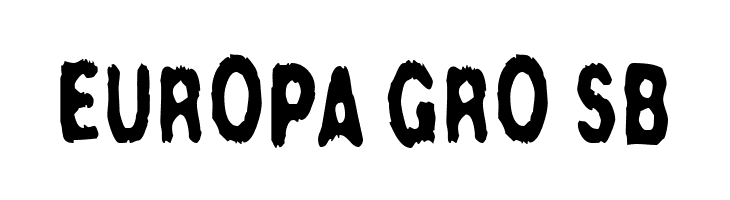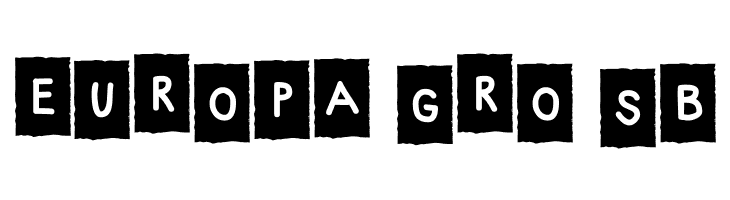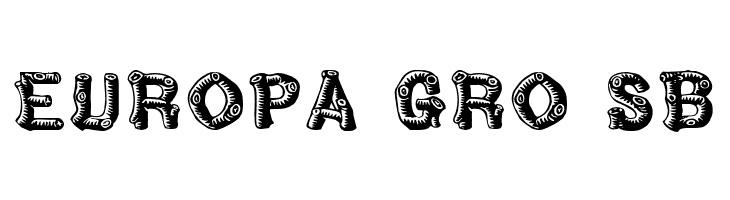
ModernLove Font
A bold, geometric font with a modern, digital aesthetic.
Woody Font
A playful, decorative font with a hand-carved, textured appearance.
French Font
Aloha Font
A bold, cursive font with interconnected characters and a playful style.
Gia Font
A bold, rounded font with a playful and modern style.
Mod Guitars Font
A bold, geometric font with a modern, edgy aesthetic.
Automobile Font
Font by www.girlswhowearglasses.com
A fluid and dynamic script font with elegant, flowing lines.
VirginiaPlain Font
A bold, distressed font with a vintage, textured style.
Lonely Sandwich Font
A playful, flowing script font with smooth curves and a handwritten feel.
Genuine Font
Whatnot Font
A bold, geometric font with sharp angles and a modern look.
PaperTiger Font
A playful, hand-drawn font with quirky, irregular shapes and a whimsical style.
D.I.N.C. Font
A bold Blackletter font with intricate, gothic-inspired letterforms.
PostNoBills Font
A bold, stencil-style font with high contrast and geometric shapes.
Zerox Font
A bold, distressed font with a vintage, rugged aesthetic.
HeyValentine Font
A playful, heart-accented font with bold, slanted characters.
Fab Font
A bold, geometric font with a strong, modern presence.
LittleBlackDress Font
A lively and dynamic script font with fluid, connected letterforms.
Corona Font
A bold, geometric font with a modern and structured design.
Reckless Font
A bold, slab serif font with a vintage yet modern style, featuring playful heart symbols.
Supposedly Font